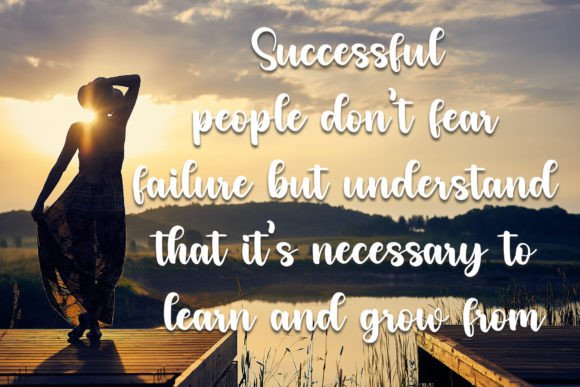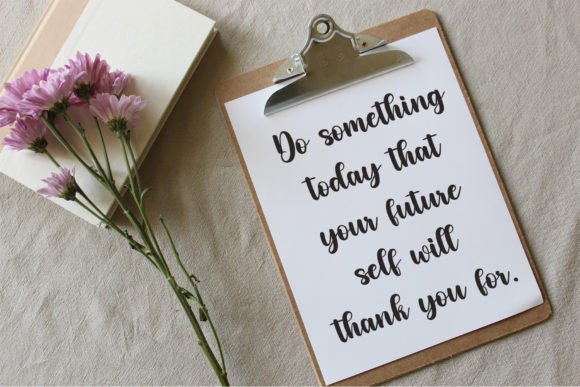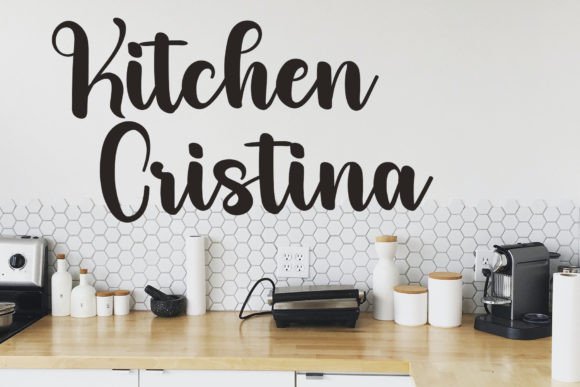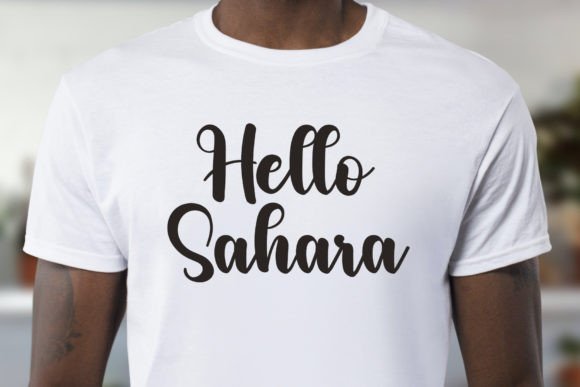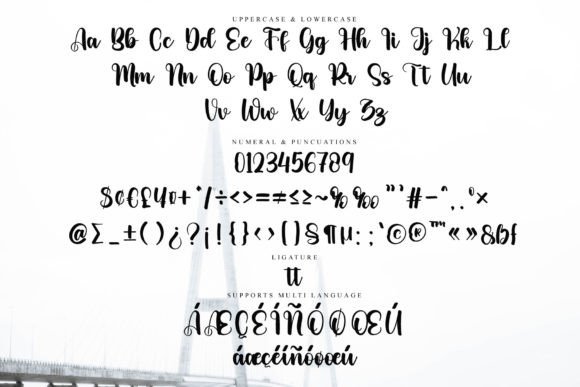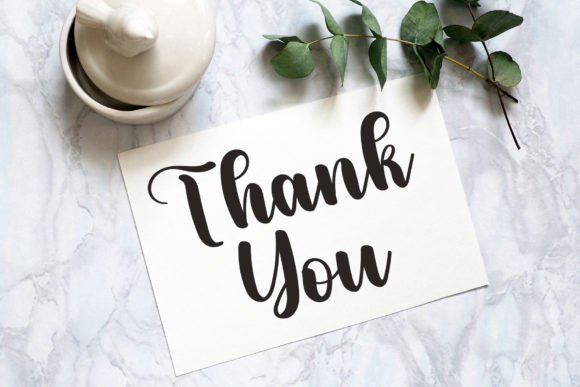
Introducing Escape Font: The Elegant and Charming Handwritten Font
Are you a designer or crafter looking for a font that exudes elegance and charm? Look no further than Escape Font. This beautiful handwritten font is perfect for adding a touch of sophistication to any design project. In this article, we’ll explore the features and benefits of Escape Font, and show you how to make the most of this stunning font.
What is Escape Font?
Escape Font is a gorgeous handwritten font that feels equally charming and elegant. Its flowing lines and delicate curves make it perfect for designs that require a personal touch. Whether you’re working on a wedding invitation, a thank you card, or a logo, Escape Font is sure to impress.
Perfect for Wedding Designs
Wedding designs require a special kind of elegance, and Escape Font delivers. Its romantic and whimsical feel makes it perfect for wedding invitations, save-the-date cards, and other wedding-related designs. You can use it to create beautiful and unique wedding stationery that will leave a lasting impression on your guests.
Versatile and Adaptable
Escape Font is not just limited to wedding designs. Its versatility makes it suitable for a wide range of design projects, including:
• Thank you cards
• Quotes
• Greeting cards
• Logos
• Business cards
• Any other design that needs a handwritten touch
Why Choose Escape Font?
So why choose Escape Font over other fonts? Here are just a few reasons:
• Elegant and charming: Escape Font has a unique and captivating feel that will add a touch of sophistication to any design.
• Handwritten feel: The font’s handwritten feel makes it perfect for designs that require a personal touch.
• Versatile: Escape Font can be used for a wide range of design projects, from wedding designs to business cards.
• Easy to read: Despite its elegant feel, Escape Font is easy to read and understand, making it perfect for designs that require a clear message.
Tips for Using Escape Font
Here are a few tips for getting the most out of Escape Font:
• Use it sparingly: Escape Font is a statement font, so use it sparingly to avoid overwhelming your design.
• Pair it with other fonts: Escape Font pairs well with other fonts, so don’t be afraid to experiment with different combinations.
• Adjust the size and color: Experiment with different sizes and colors to find the perfect combination for your design.
Escape Font is a stunning handwritten font that feels equally charming and elegant. Its versatility and adaptability make it perfect for a wide range of design projects, from wedding designs to business cards. With its elegant feel and easy-to-read style, Escape Font is sure to become a favorite among designers and crafters. So why not give it a try and see how it can elevate your designs?